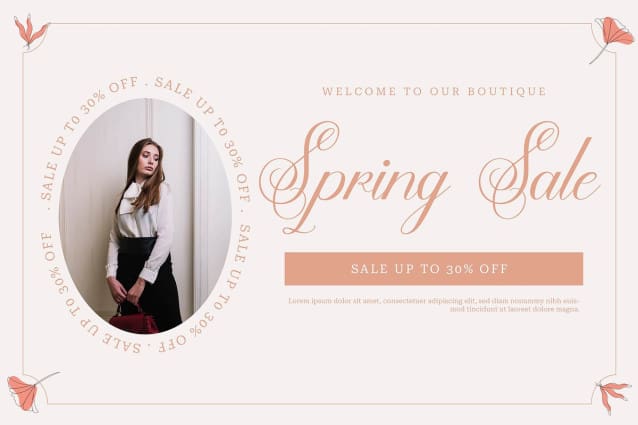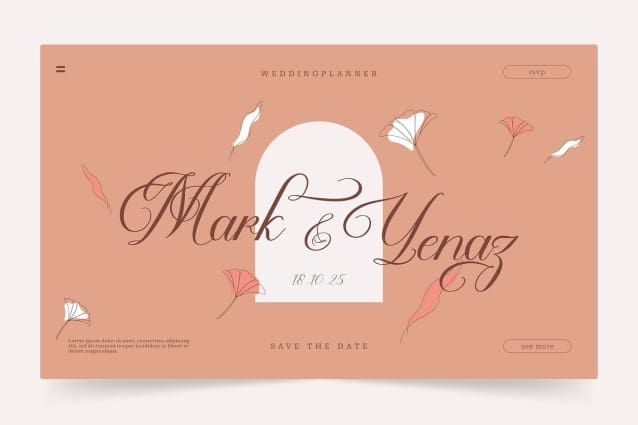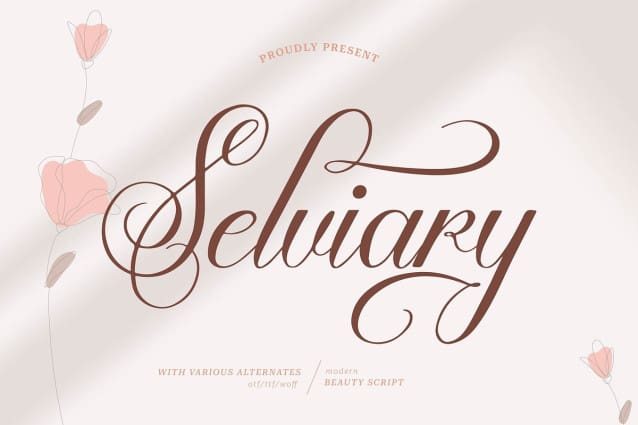
Selviary Font
Selviary Font – Beauty Script, from Denustudios, suitable for any projects such as: logos, branding projects, homeware designs, product packaging, mugs, quotes, posters, shopping bags, t-shirts, book covers, name card, invitation cards, greeting cards, label, photography, watermark, special events, and all your other lovely projects that need a beautiful script taste.